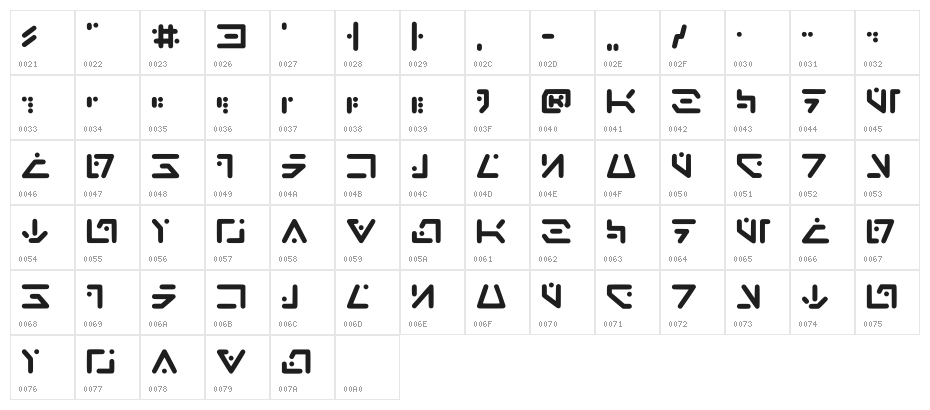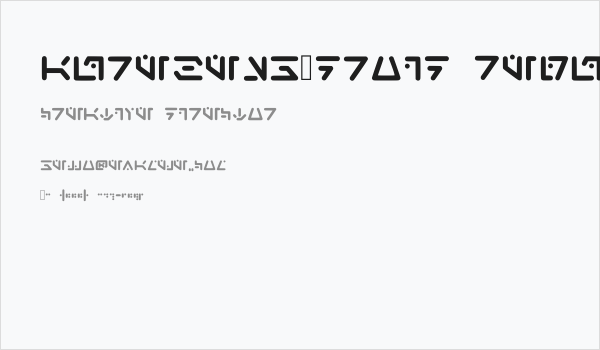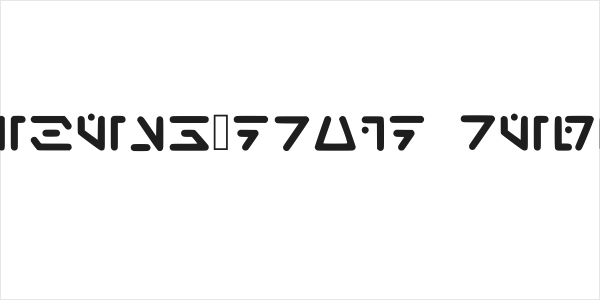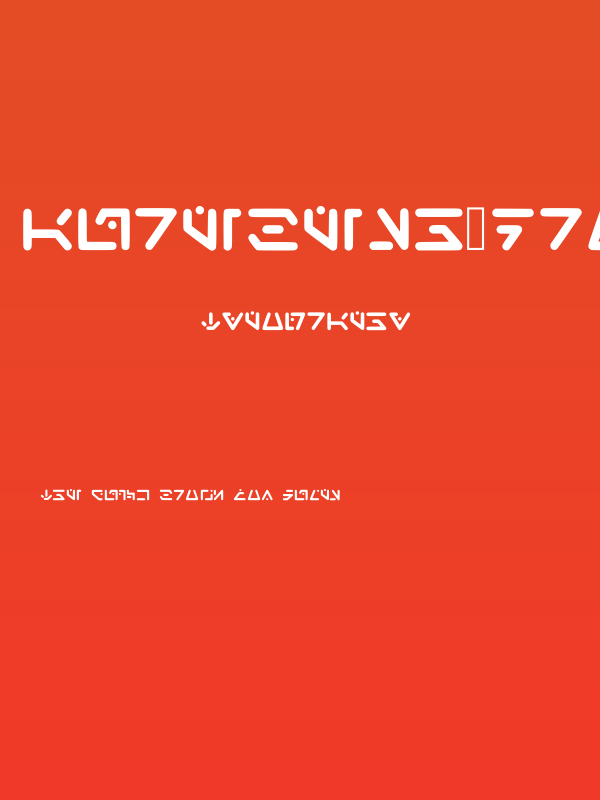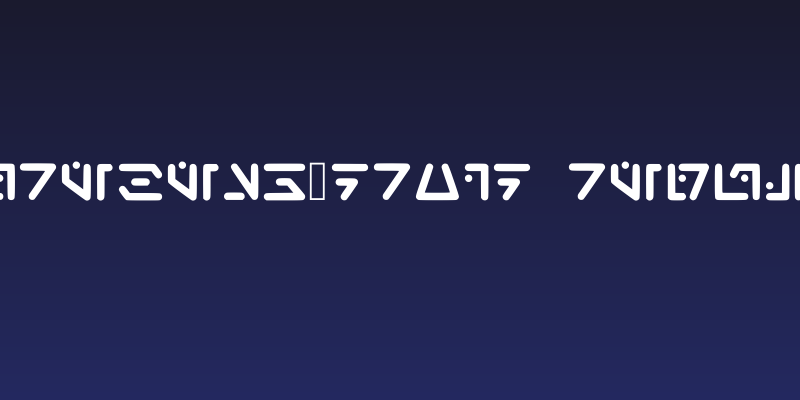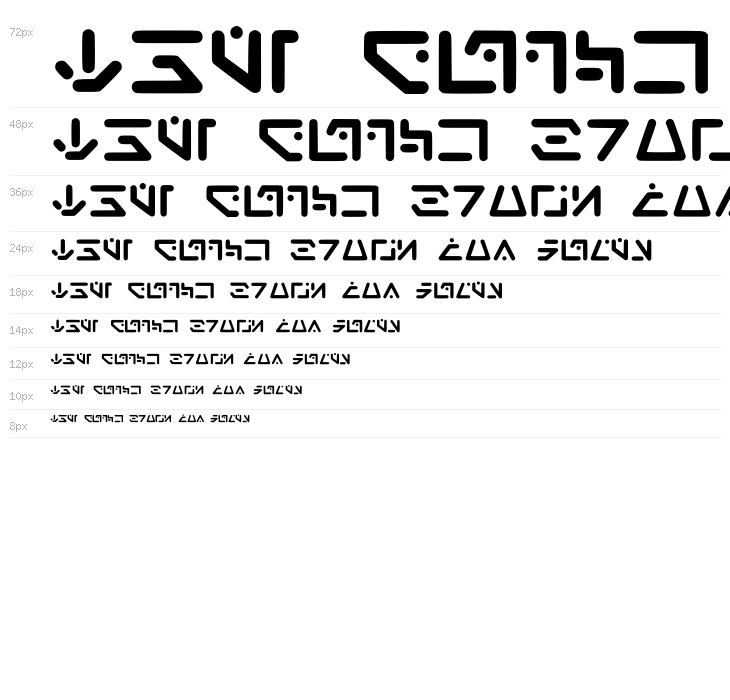
Aurebesh_droid Regular Font
This font is a fictional script used in a popular science fiction universe, characterized by its geometric and angular shapes. Each character is designed with a futuristic aesthetic, featuring bold lines and unique dot placements that give it an alien-like appearance. The font is highly stylized, making it ideal for creative projects that require a distinctive and otherworldly look. Its design is consistent throughout, with each letter and symbol maintaining a uniform style that enhances its readability within its intended context.
| Use Case | Logos, Posters, Themed Interfaces |
| Proposed Projects | Ideal for science fiction themed projects, movie posters, video game interfaces, and any creative work requiring an alien or futuristic aesthetic. |